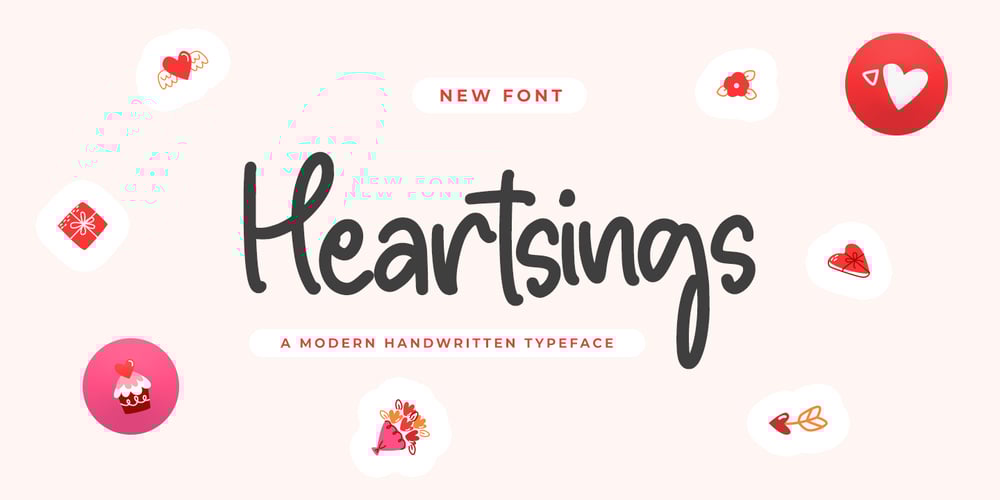
Heartsings Font Family was designed by Hayinah and published by Rockboys Studio. Heartsings contains 1 styles and family package options. Heartsings is a display font that embodies fun, quirkiness, and authenticity. This enchanting display font will turn any creative idea into a true standout. Get inspired by its childlike playfulness, and use it to brighten up any kids and school project!